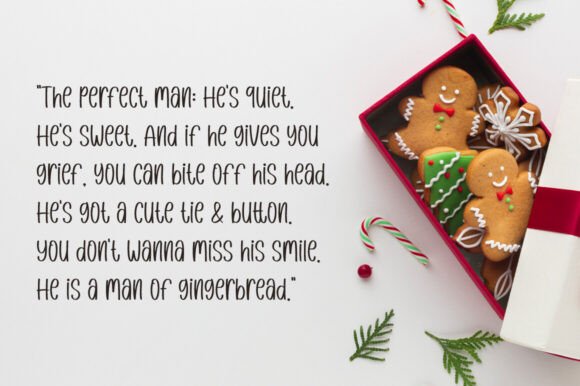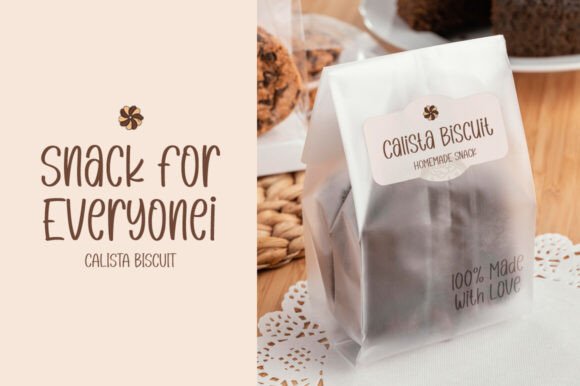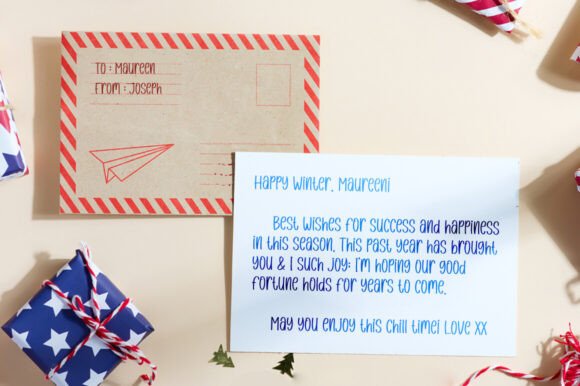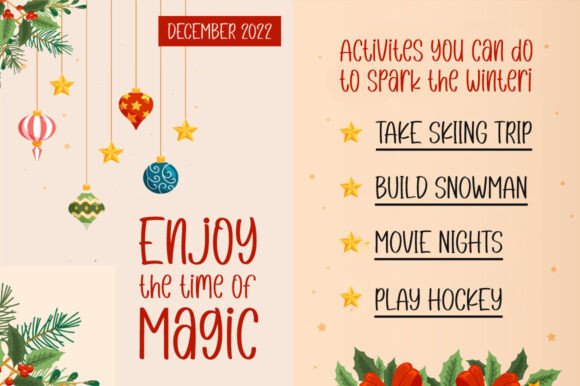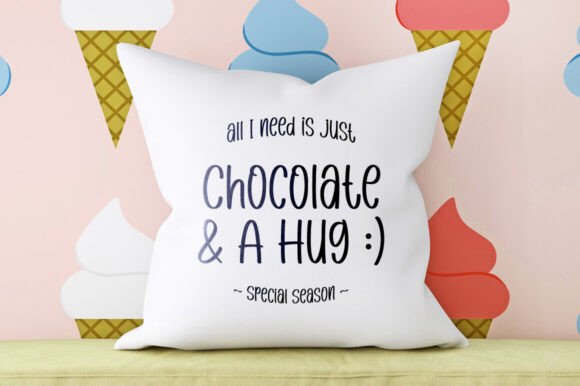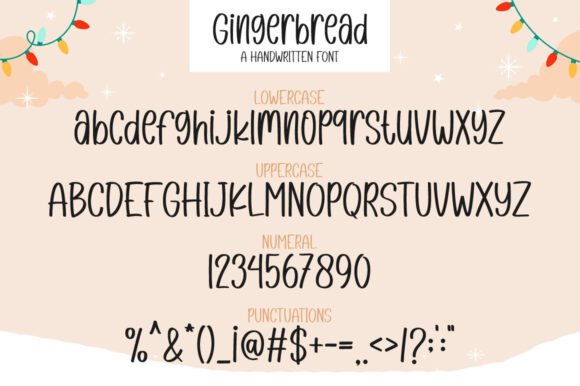
Unwrapping the Magic of Gingerbread Font
Have you ever sat at your desk, staring at a blank page, and suddenly, the perfect idea strikes? For designers, those moments of creative clarity can be game-changers. And for us, that moment came when we discovered the Gingerbread Font.
This lovely, timeless handwritten font is the perfect choice for creating eye-catching logos, branding, and quotes. With its unique charm and character, Gingerbread Font adds a personal touch to any design project. Whether you’re a seasoned pro or just starting out, this font is sure to bring your creative vision to life.
What makes Gingerbread Font so valuable to designers is its versatility and charm. It’s the perfect addition to any project, from children’s book illustrations to wedding invitations. And with its natural, handwritten feel, it’s sure to leave a lasting impression on your audience.
Gingerbread Font Key Features
- Unique Characteristics: The Gingerbread Font features a unique, playful design with a mix of modern and vintage elements, making it perfect for adding a touch of whimsy to your designs.
- Font Style: The font is available in regular, bold, and italic styles, offering versatility and flexibility for different design applications.
Gingerbread Font Review
Gingerbread Font is a charming, hand-drawn font that exudes warmth and coziness. ✨ The unique, whimsical characters are sure to bring a smile to the faces of your viewers. The font is perfect for creating festive holiday content, like Christmas cards, gift tags, and social media posts.
- ✨ The font’s playful, hand-drawn feel adds a personal touch to your designs.
- ✨ The character set is comprehensive, making it suitable for a wide range of projects.
- ✨ The font’s size and spacing are well-balanced, ensuring readability across various platforms.
- ⚠️ The font’s limited legibility at smaller sizes may require careful typesetting.
- ⚠️ Some characters may appear slightly irregular or uneven, which may be distracting for certain users.
Gingerbread Font is a delightful, eye-catching font that’s perfect for holiday-themed projects. While it may have some limitations, its unique charm and comprehensive character set make it a valuable addition to any designer’s toolkit. If you’re looking to add some festive flair to your designs, Gingerbread Font is definitely worth considering.
The Gingerbread Font is perfect for creating festive and playful designs, especially during the holiday season. Use it to add a touch of whimsy to your designs, such as:
- Holiday cards and invitations
- Party decorations and signage
- Food and dessert labels
Remember to pair the Gingerbread Font with complementary colors and designs to get the most out of it.